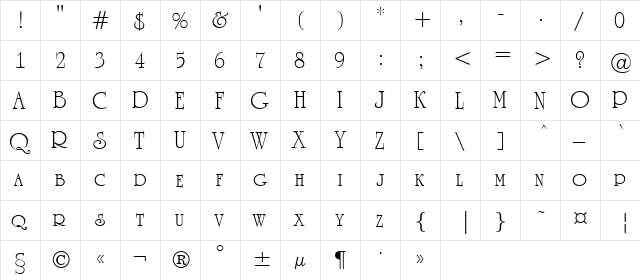
a_RomanusCps Regular
Design Context for a_RomanusCps Typeface
a_RomanusCps is a composed and adaptable typeface that performs quietly and consistently across a wide range of design contexts.